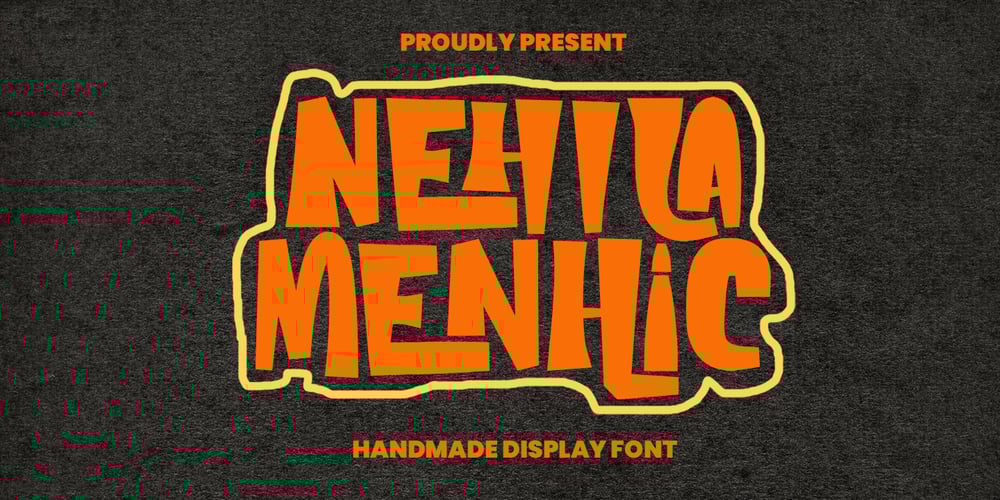
MC Nehila Menhic Font Family was designed by Gilang Maulana and published by Maulana Creative. MC Nehila Menhic contains 1 styles and family package options. Nehila Menhic handmade display font, fun character with alternates and ligatures. To give you an extra creative work. Nehila Menhic handmade brush display font support multilingual language.Many Thanks,Maulana Creative